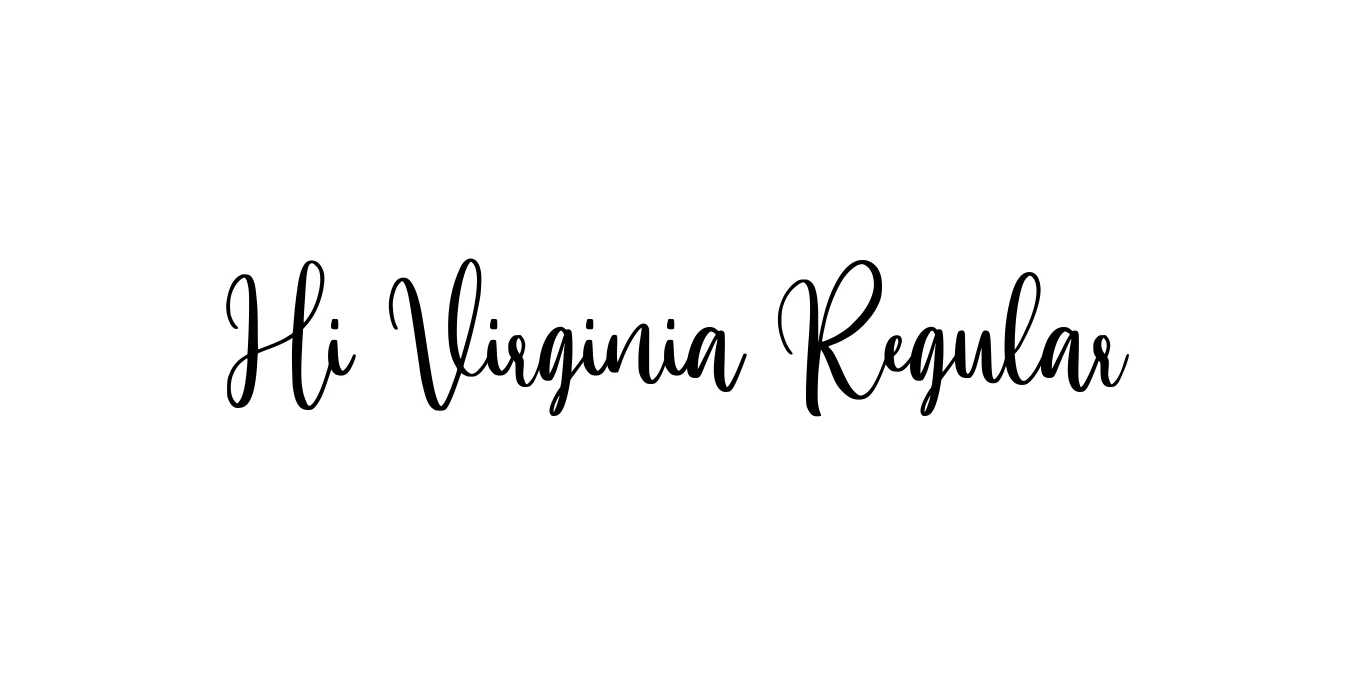
Hi Virginia Regular
Designed by Kotak Kuning Studio
Hi Virginia Regular is a graceful and fluid script typeface designed to capture the essence of natural handwriting with a touch of modern elegance. This font features delicate, flowing strokes and a high level of legibility for a decorative script, making it a popular choice for designers seeking a personal and intimate feel in their projects. Its balanced proportions and rhythmic connections between characters create a harmonious aesthetic that stands out in both print and digital media.
Developed with versatility in mind, Hi Virginia Regular includes a variety of stylistic alternates and ligatures that allow for a custom, hand-drawn appearance. Since its release, it has become a staple for romantic-themed designs, particularly within the wedding and lifestyle industries. The font's ability to convey warmth and sophistication simultaneously ensures it remains a timeless tool for branding, editorial layouts, and high-end packaging design.
Hi Virginia Regular Best Uses
Perfect for creating a romantic and personalized touch on stationery and invites.
Ideal for logos and identity systems for boutique fashion or luxury beauty brands.
Excellent for aesthetic quotes and lifestyle posts on Instagram or Pinterest.
Adds a sophisticated, artisanal feel to high-end product labels and gift boxes.